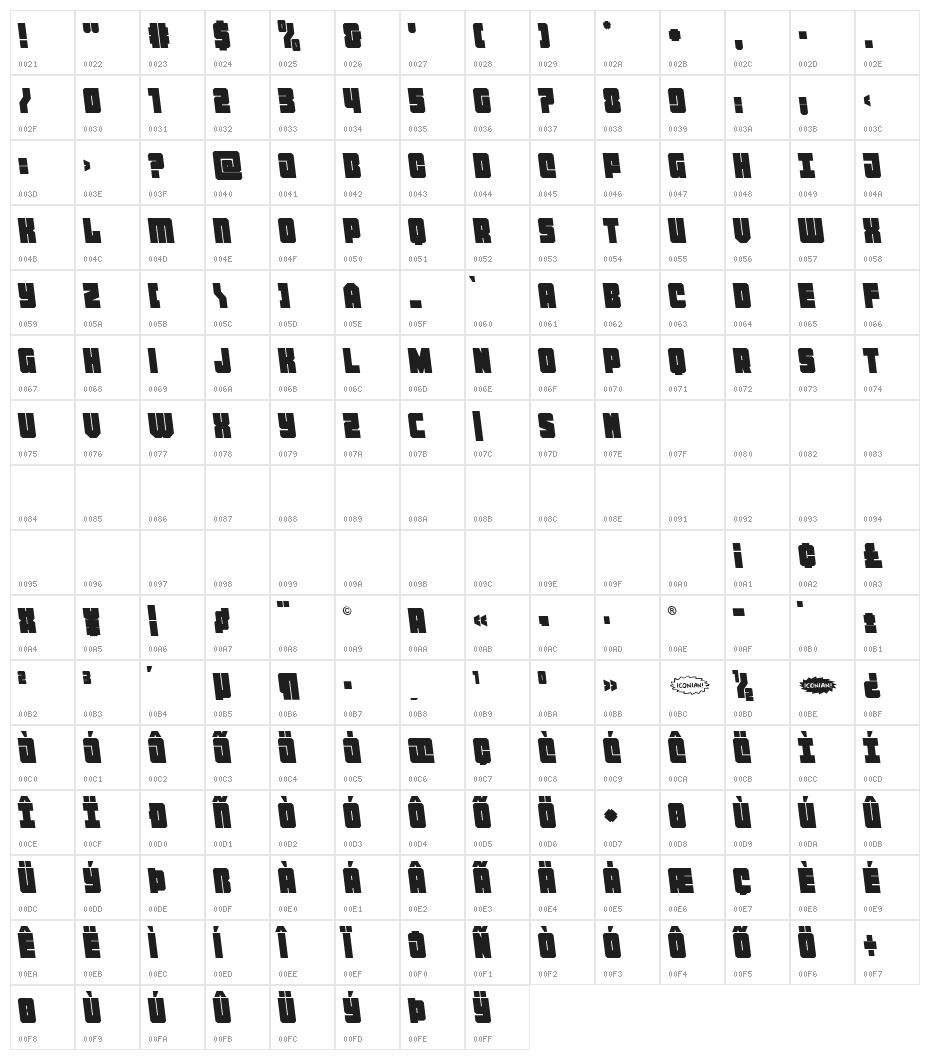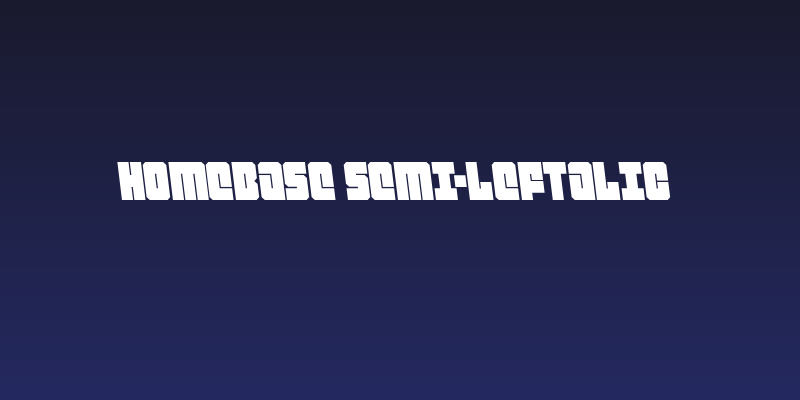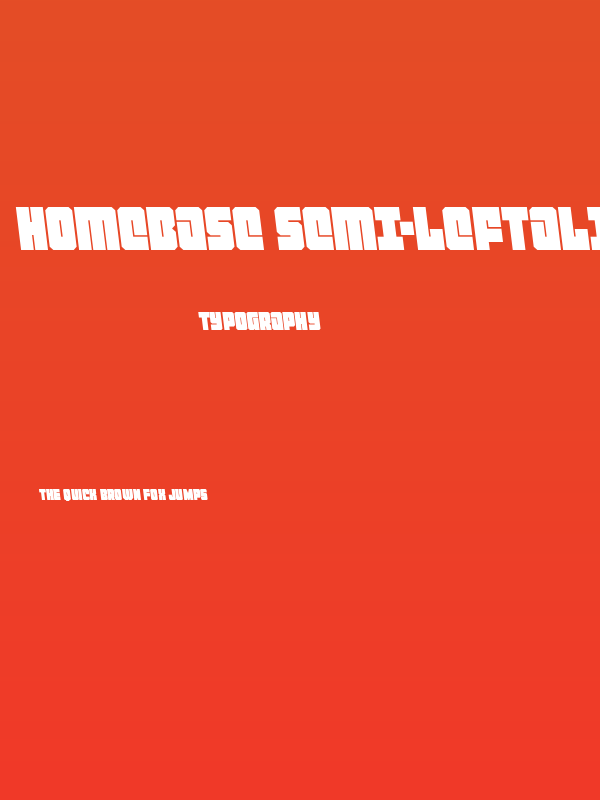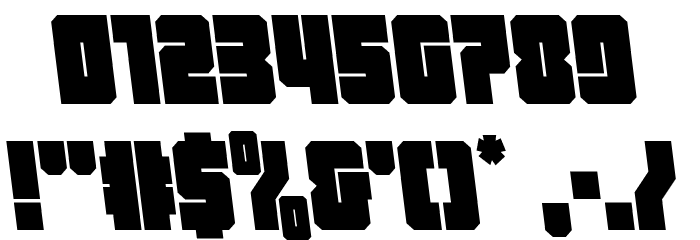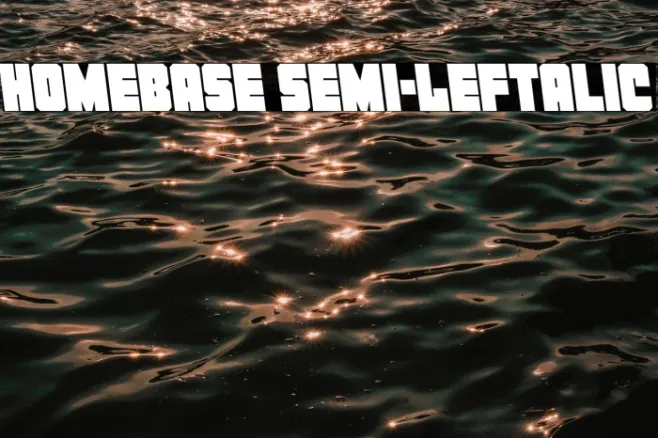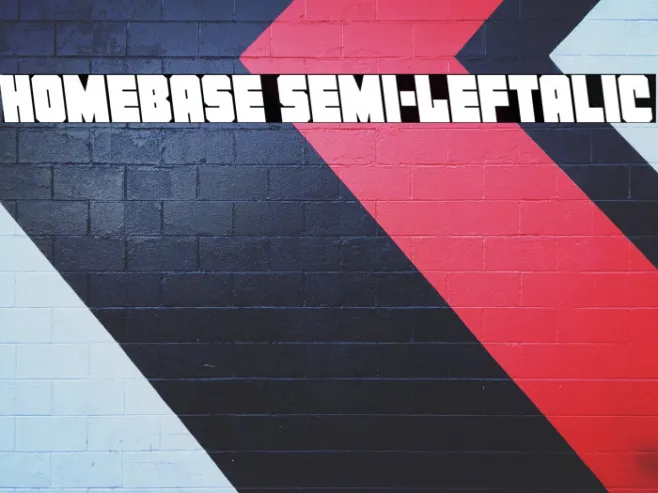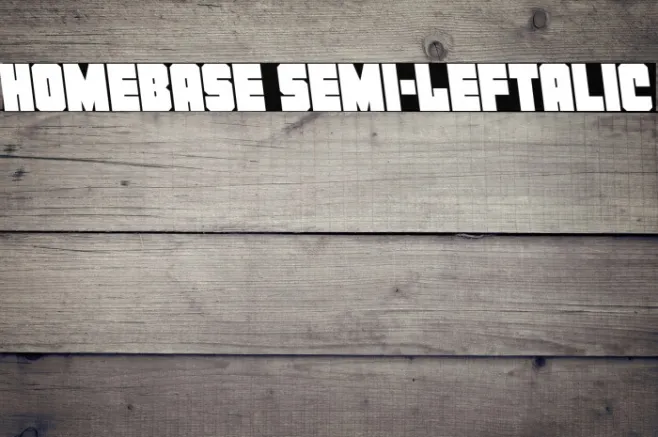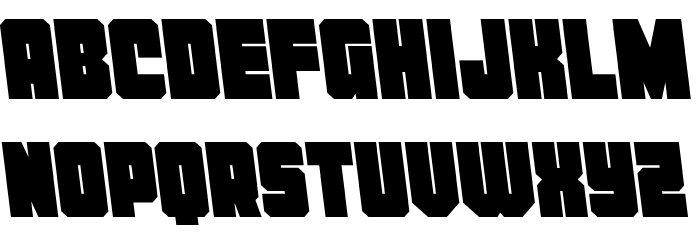
Homebase Semi-Leftalic Font
Homebase Semi-Leftalic Description
This font features a bold, geometric design with a distinct blocky appearance. The characters are uniformly wide, creating a strong visual impact. The angular edges and thick strokes give it a robust and sturdy feel, making it ideal for attention-grabbing headlines or titles. The uppercase and lowercase letters maintain a consistent style, with the lowercase slightly smaller but equally bold. Numbers and special characters follow the same design principles, ensuring a cohesive look across all text elements. The font's style is reminiscent of industrial or urban themes, with a modern twist.